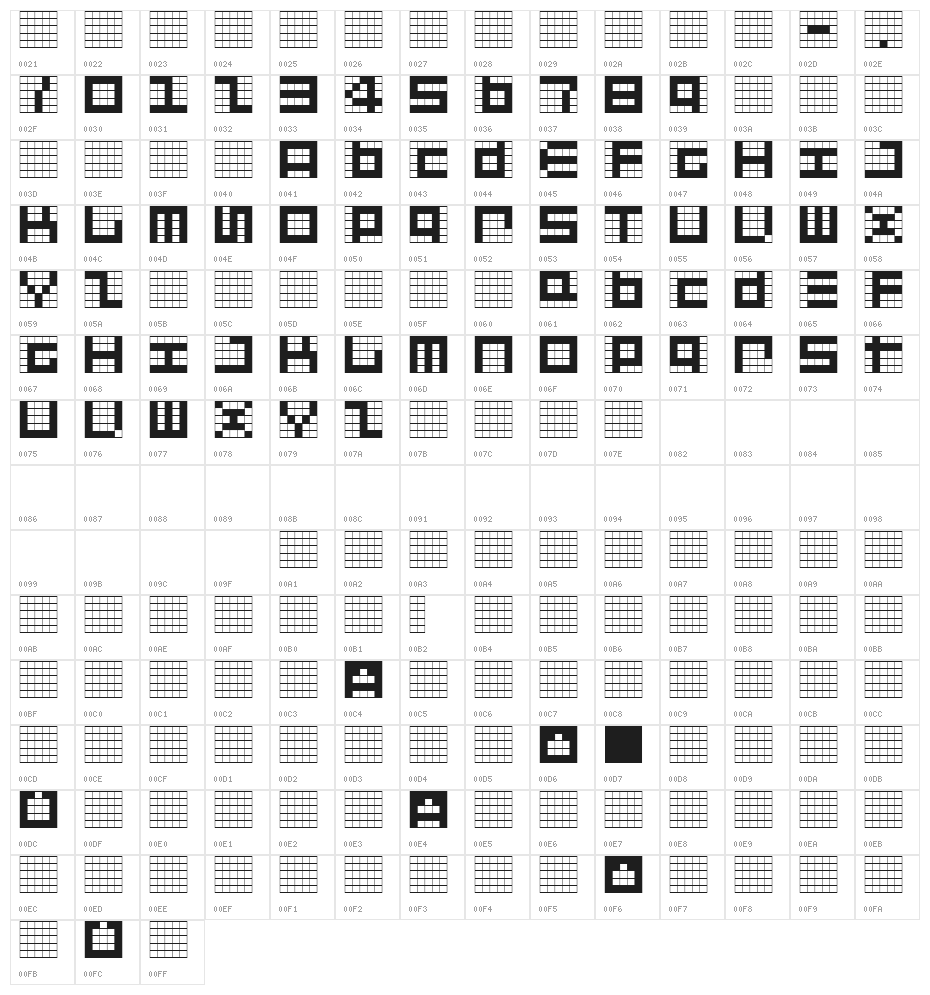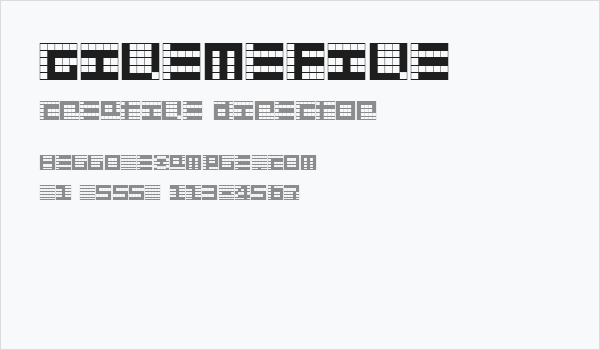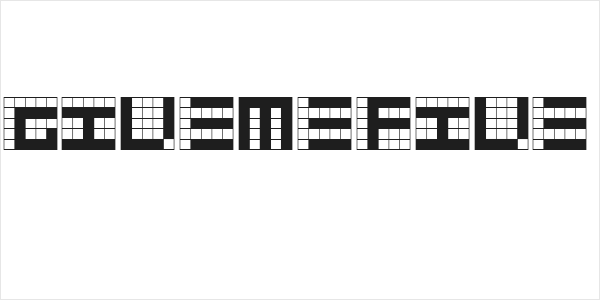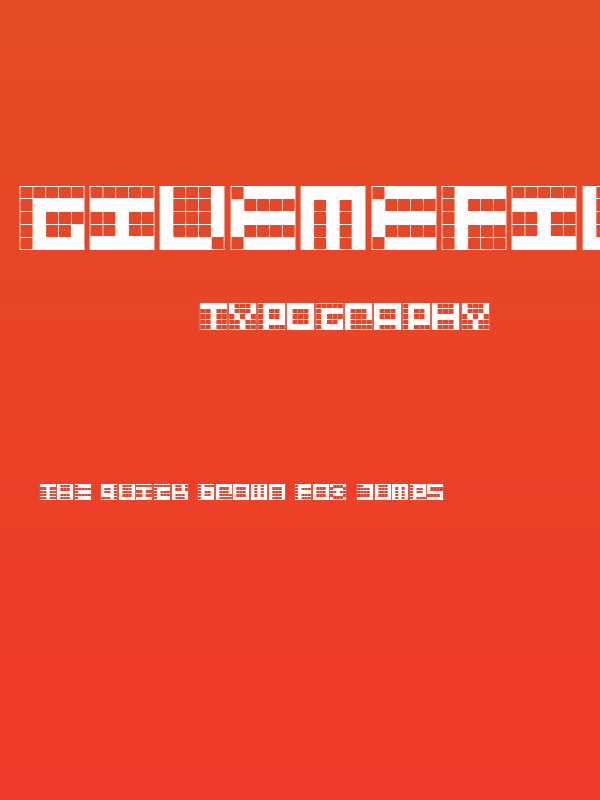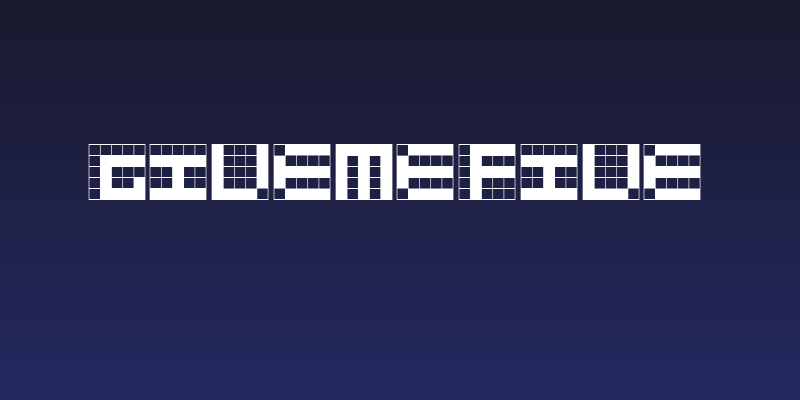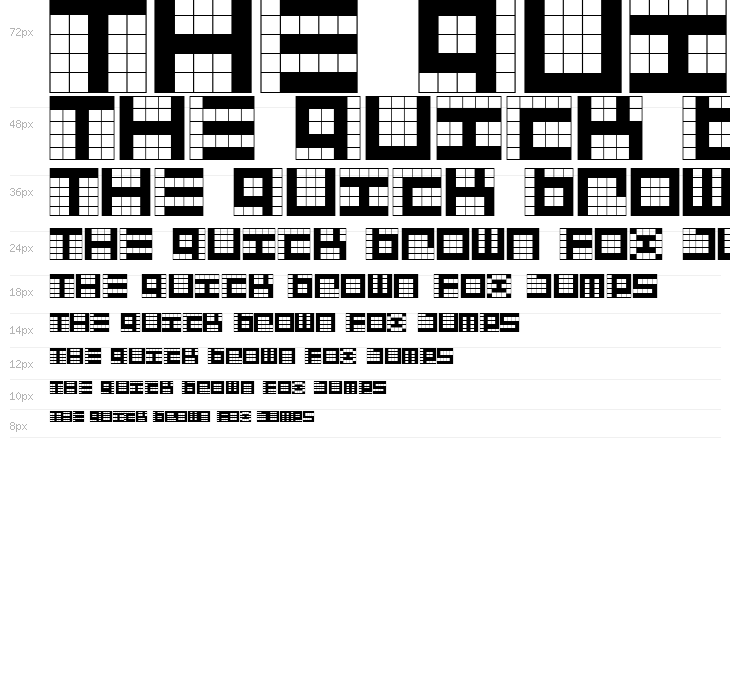
GiveMeFive Font
GiveMeFive Description
This font features a unique grid-based design where each character is composed of a series of filled and unfilled squares, creating a pixelated effect. The characters are uniformly structured, giving a digital and geometric appearance. The uppercase and lowercase letters, as well as numbers and special characters, maintain a consistent blocky style, making it ideal for digital-themed projects. The font's rigid and structured form lends itself well to modern and tech-inspired designs, providing a distinct and recognizable look.